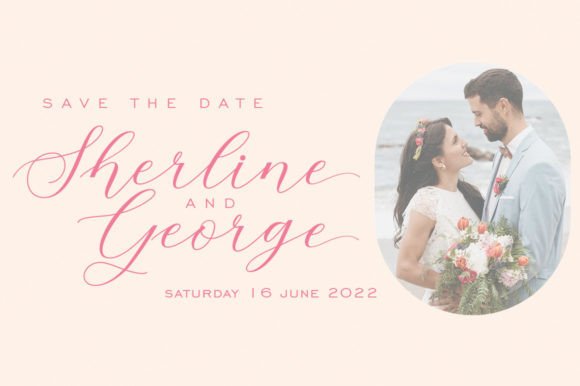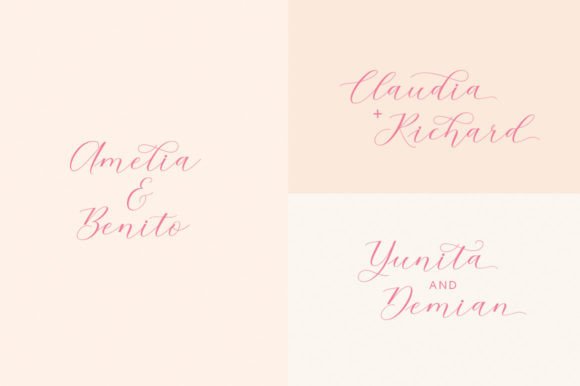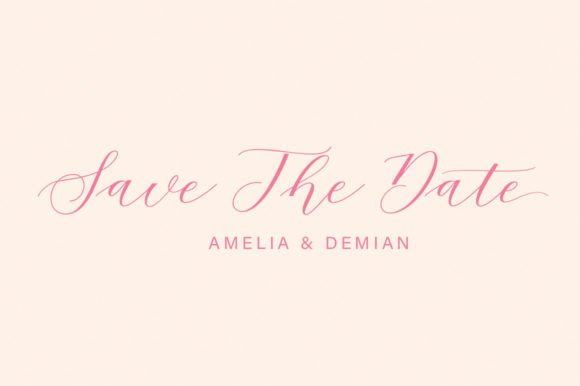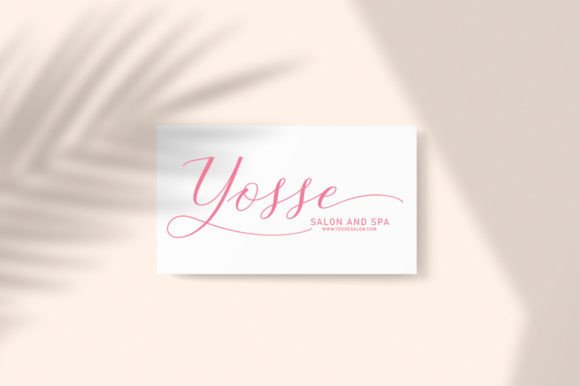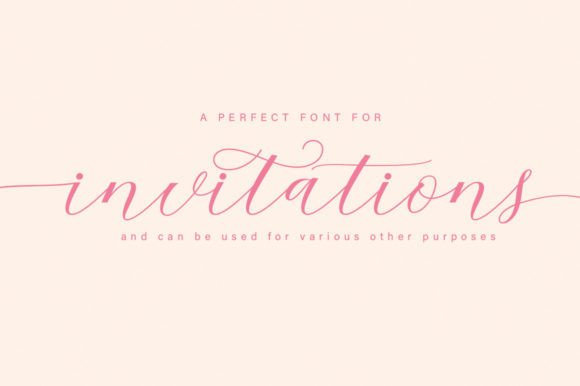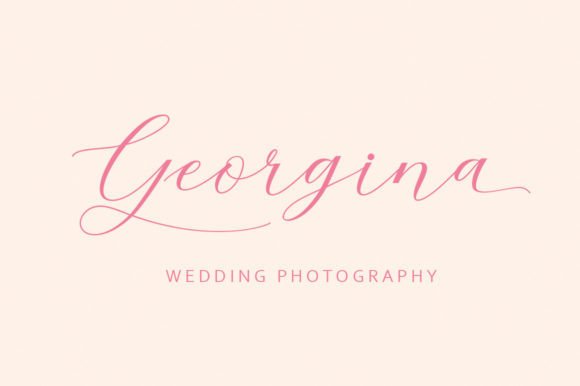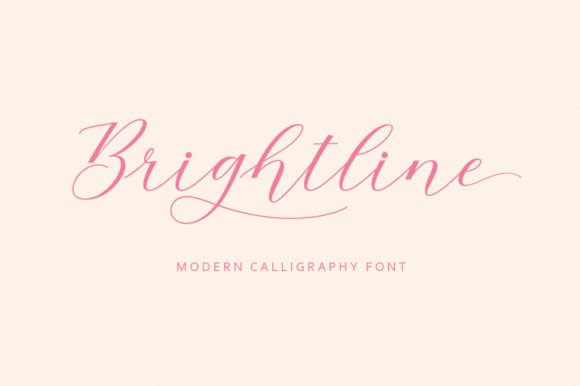
Introducing Brightline Font: Elevate Your Designs with Elegance and Sophistication
In the world of typography, a new star has emerged: Brightline Font. This modern script font is making waves with its unique, irregular baseline and elegant writing style. Perfect for designers and crafters looking to add a touch of sophistication to their projects, Brightline is set to become a favorite in the design community.
What Makes Brightline Font Stand Out?
Brightline Font boasts several features that set it apart from other script fonts on the market. Here are a few key highlights:
- Irregular Baseline: The distinctive irregular baseline gives Brightline its unique charm, adding a touch of whimsy and personality to any design.
- Elegant Writing Style: With its flowing lines and beautiful letterforms, Brightline is perfect for creating elegant and sophisticated designs.
- PUA Encoding: This font is PUA (Private Use Area) encoded, making it incredibly easy to access all the glyphs and swashes. This feature is especially useful for designers who want to add a personal touch to their work.
Brightline Font is incredibly versatile and can be used for a wide range of design projects, including:
- Wedding Invitations: Add a touch of elegance and sophistication to your wedding invitations with Brightline.
- Business Cards: Make a lasting impression with beautifully designed business cards that showcase your brand’s personality.
- Stationery: Create stunning stationery sets that include letters, notecards, and journals.
- Branding: Use Brightline to create a cohesive brand identity that exudes elegance and refinement.
Why Designers and Crafters Love Brightline Font
Brightline Font has quickly become a favorite among designers and crafters, and for good reason. Here are a few reasons why:
- Easy to Use: With its PUA encoding, Brightline is incredibly easy to use, even for those who are new to font design.
- Highly Versatile: Brightline can be used for a wide range of design projects, from wedding invitations to branding materials.
- Unique and Eye-Catching: The irregular baseline and elegant writing style make Brightline a standout font that will grab attention.
Tips for Getting the Most Out of Brightline Font
To get the most out of Brightline Font, here are a few tips:
- Experiment with Different Sizes: Brightline looks great in a variety of sizes, so don’t be afraid to experiment to find the perfect fit for your design.
- Play with Swashes: With its PUA encoding, Brightline offers a range of swashes and glyphs to add a personal touch to your designs.
- Pair with Other Fonts: Brightline pairs beautifully with other fonts, so try combining it with a sans-serif font for a striking contrast.
Brightline Font is a game-changer for designers and crafters looking to add a touch of elegance and sophistication to their projects. With its unique irregular baseline, elegant writing style, and PUA encoding, Brightline is the perfect choice for a wide range of design projects. Whether you’re creating wedding invitations, business cards, or branding materials, Brightline is sure to impress.